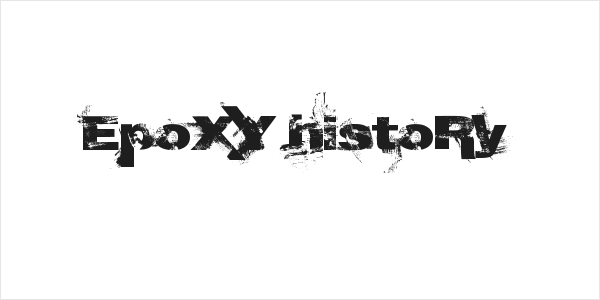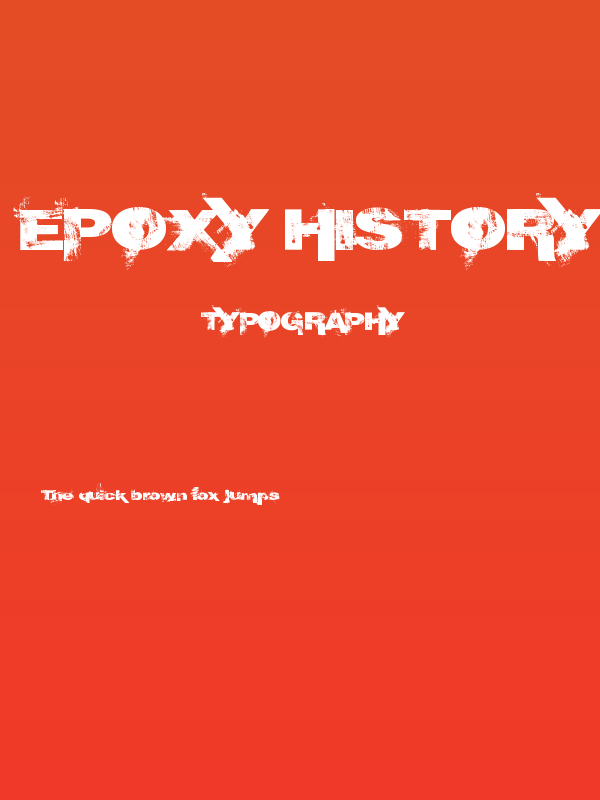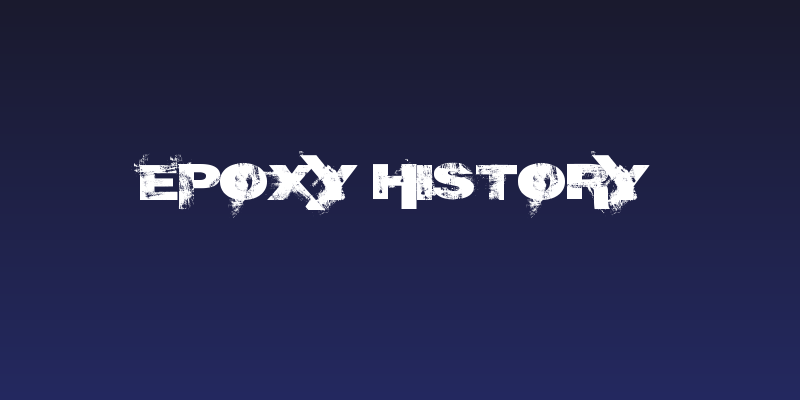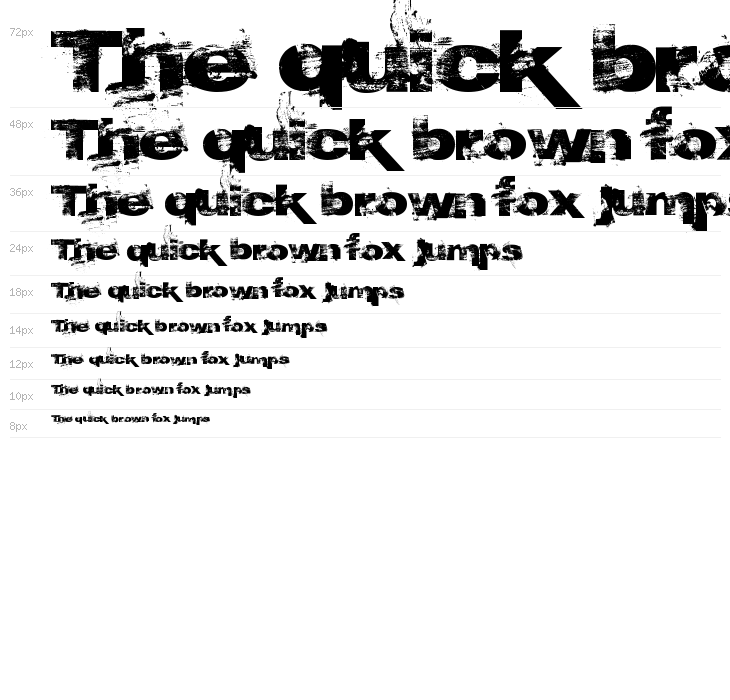
EpoXY histoRy Font
EpoXY histoRy Description
This font features a bold and distressed style, with a grunge texture that gives it a worn and rugged appearance. The characters are bold and impactful, with irregular edges and a rough, weathered look. The uppercase and lowercase letters maintain a consistent weight, while the numbers and special characters follow the same distressed theme. This font is ideal for projects that require a strong, edgy, and rebellious aesthetic, making it perfect for music album covers, posters, and urban-themed designs.
| Overall Style | Grunge, Edgy |
| Proposed Projects | Ideal for music album covers, posters, urban-themed designs, and edgy branding. |